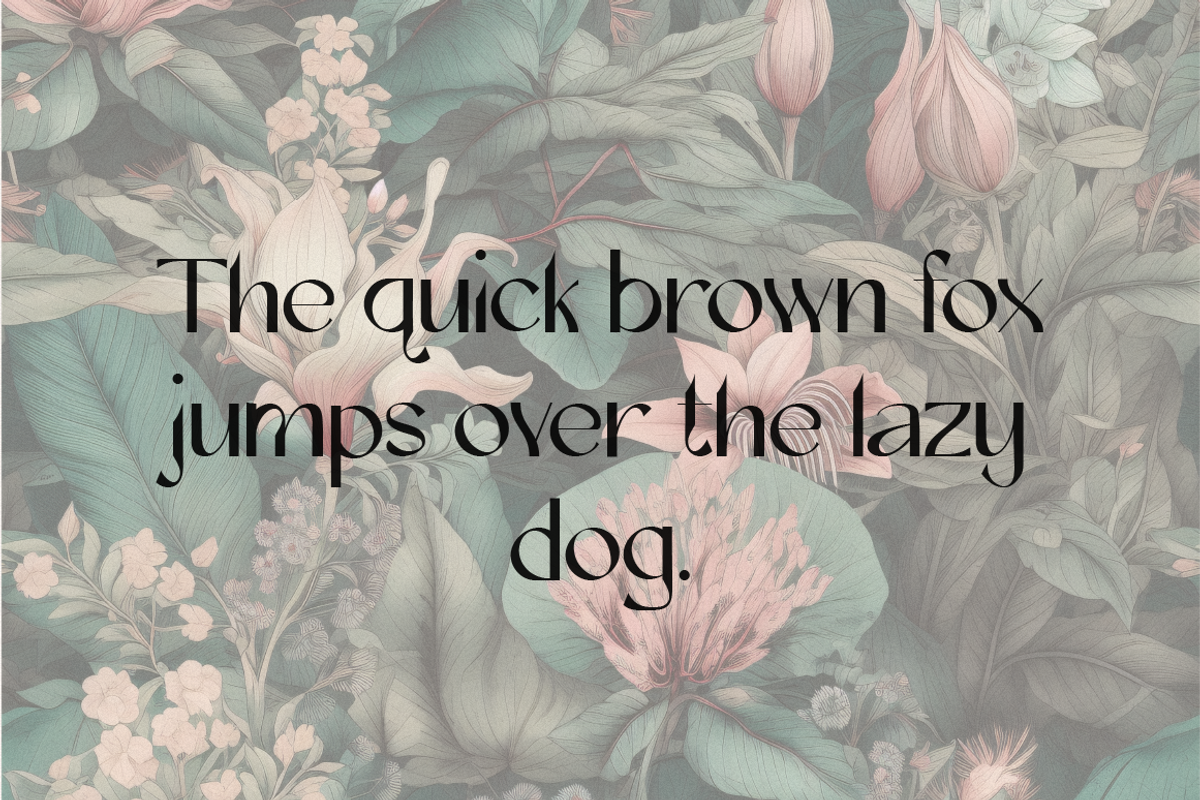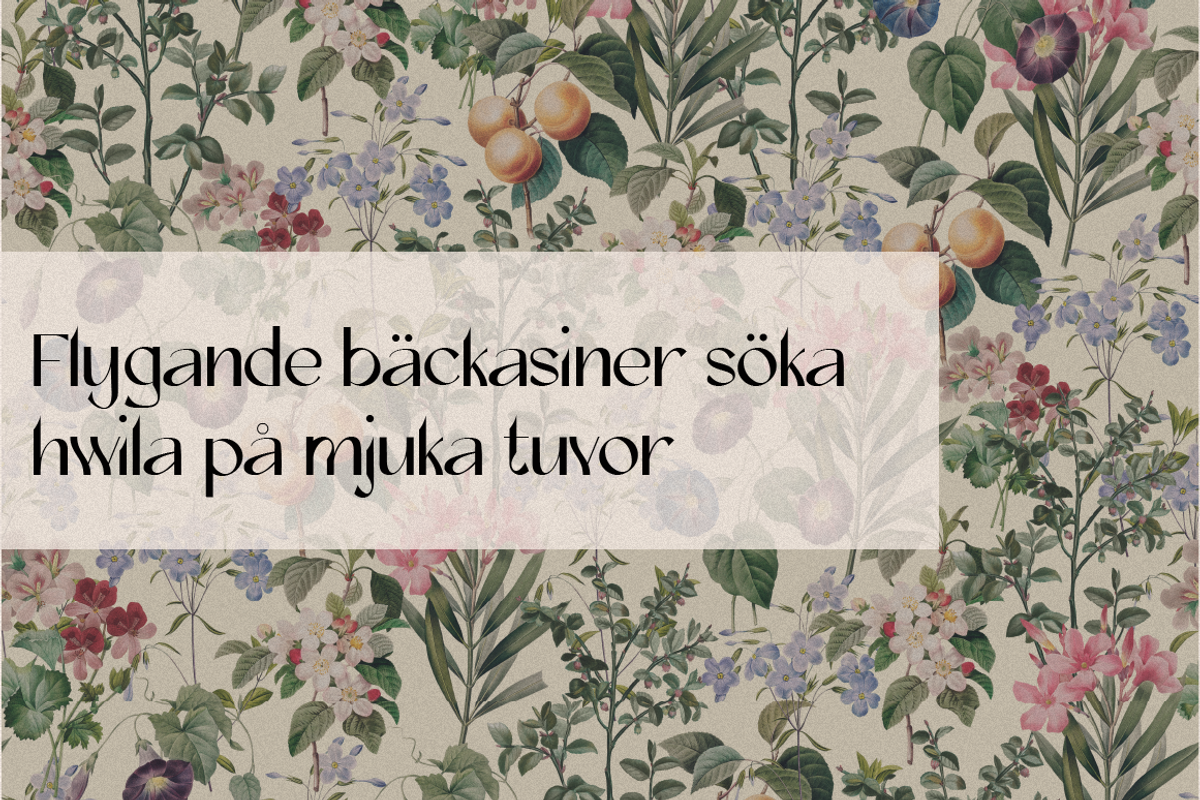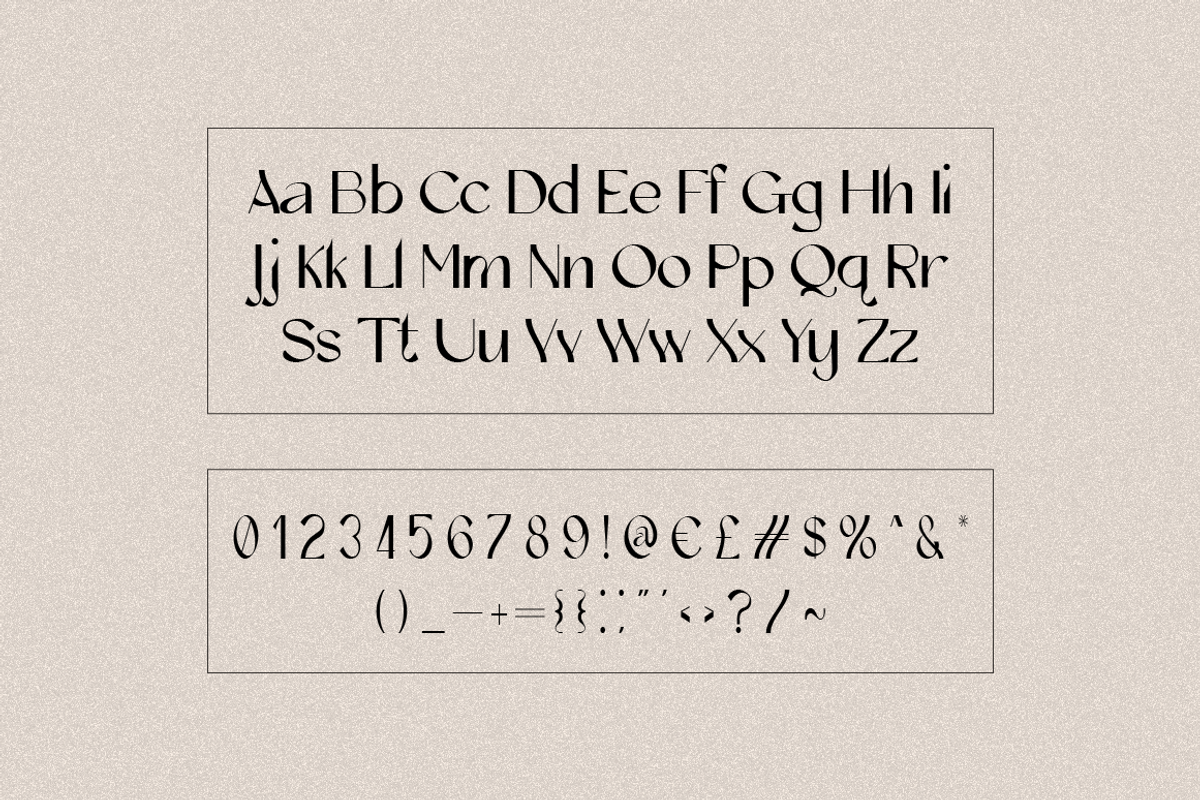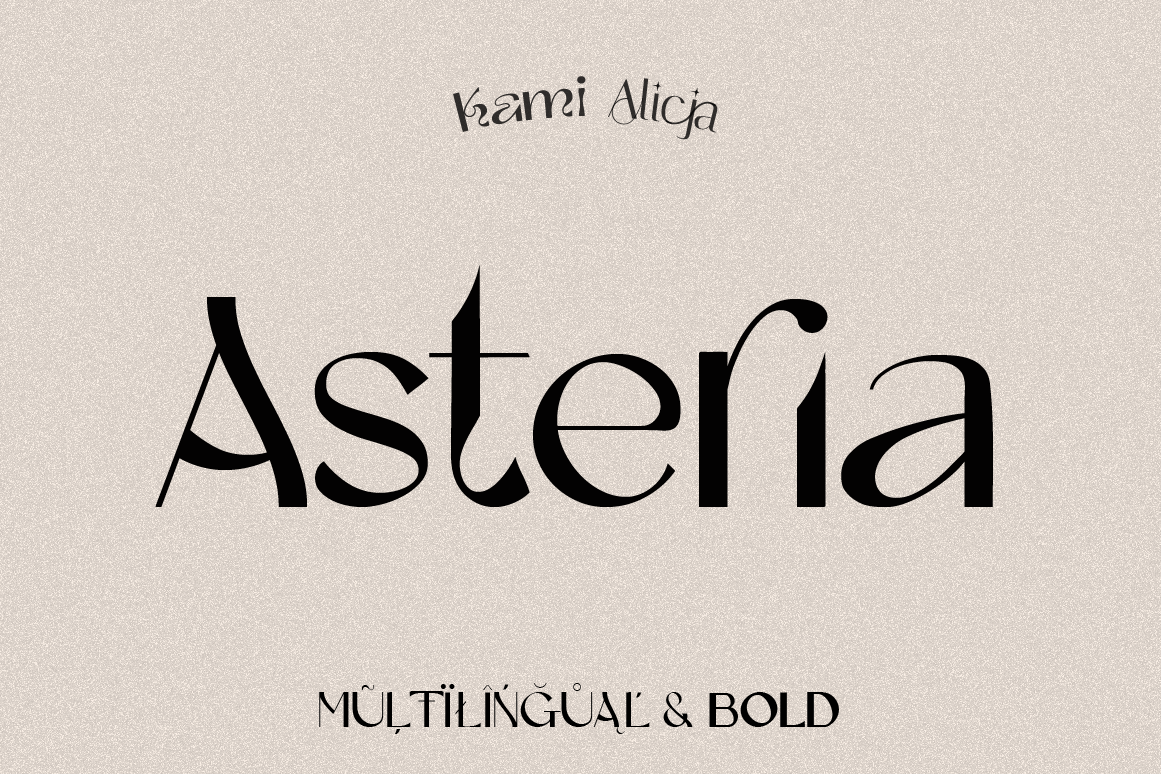
Asteria - Bold San Serif Font
Introducing Asteria font – a whimsical and wavy font.
Asteria is also included full set of:
- uppercase letters
- lowercase letters
- multilingual symbols
- numerals
- punctuation
Some alternative glyphs.
Perfect for poster, web design, branding, illustrations, badges and some other works.